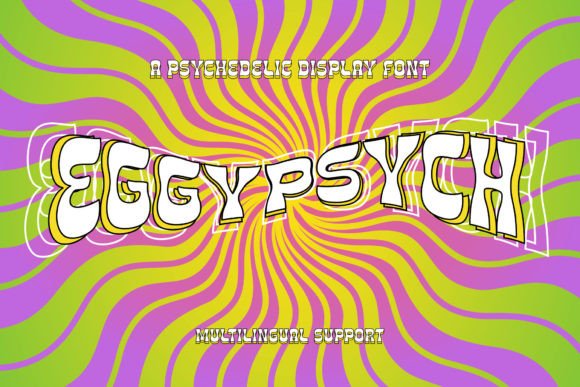
Behold Eggypsych Font, the ultimate display font that captures the essence of pop art. Crafted meticulously by Brothers Graphic, Eggypsych is a masterpiece that effortlessly combines retro charm with modern aesthetics.
Unleash your creativity and make a statement with Eggypsych. Whether you're designing magazine headlines, advertisement headers, or creating eye-catching visuals, this font will elevate your work to new heights. Its bold body and captivating style leave a lasting impression, transforming your designs into works of art.
Step into a world of endless possibilities with Eggypsych. Its retro vibe adds a touch of nostalgia to your projects, while its modern appeal keeps them fresh and contemporary. This font is a chameleon of style, adapting seamlessly to both vintage and modern designs.
Immerse yourself in a world of vibrant colors and psychedelic patterns as Eggypsych takes you on a journey through the ages. Its unique glyphs and ligatures, accessible with ease thanks to PUA encoding, open up a treasure chest of creative opportunities. Unleash your imagination and let Eggypsych guide you towards design brilliance.